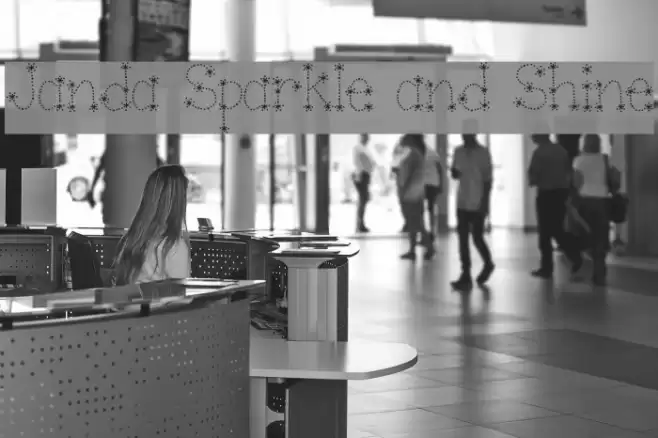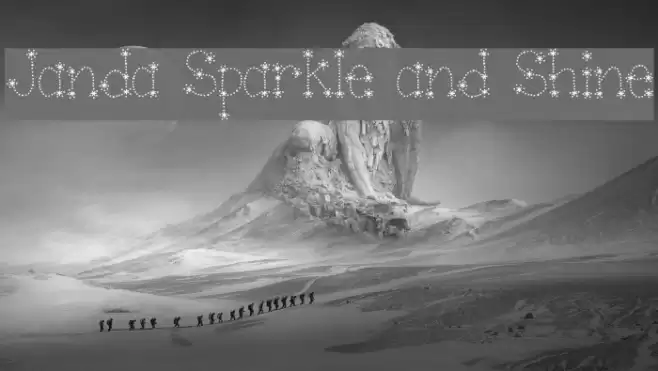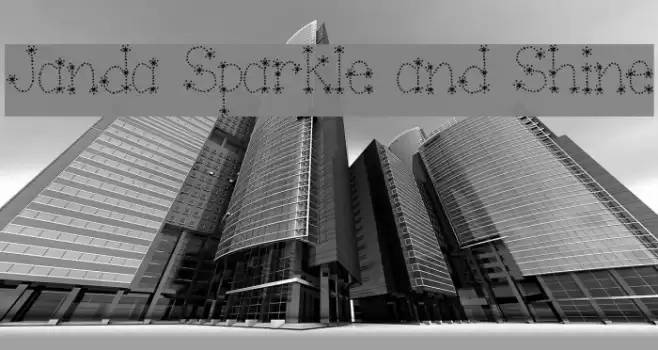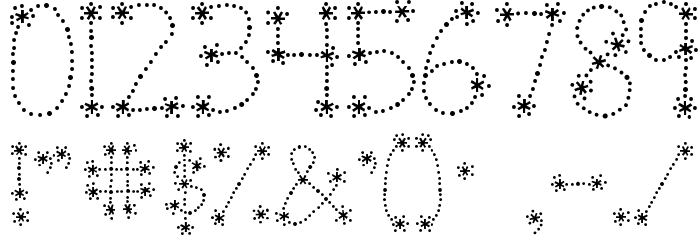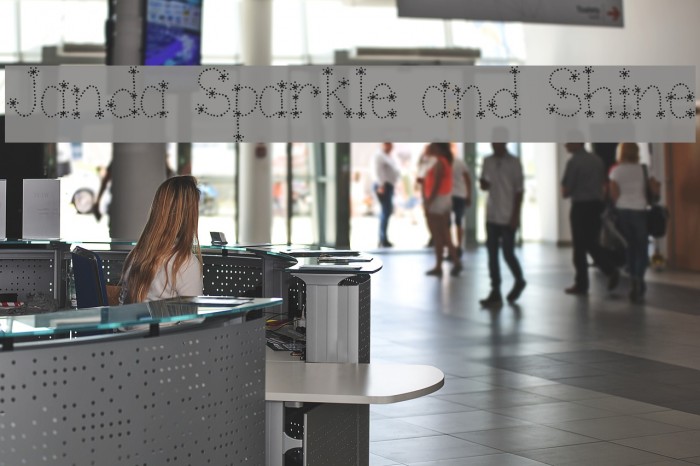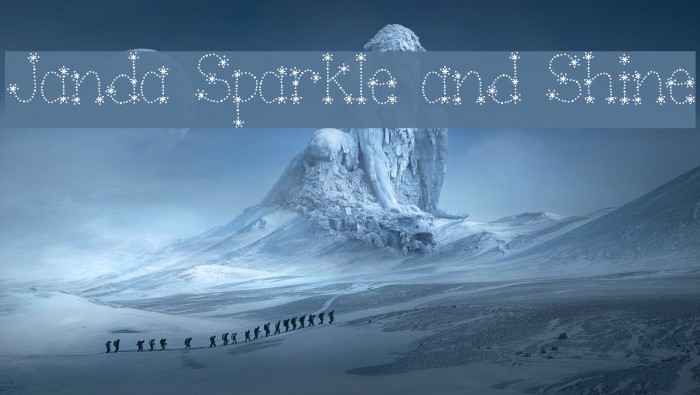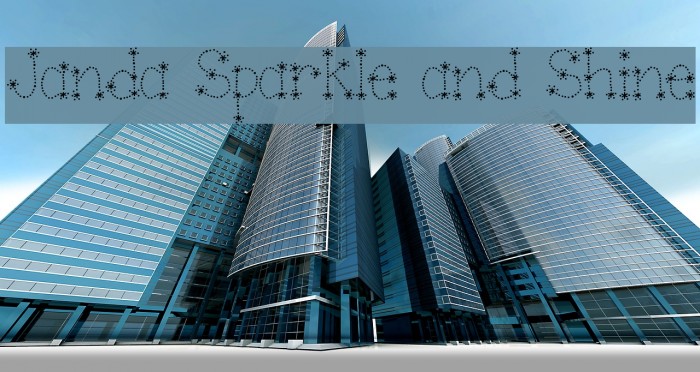
Janda Sparkle and Shine Font
Janda Sparkle and Shine Description
This whimsical and playful font is composed of a series of dots and sparkles that form each character, creating a unique and eye-catching appearance. The letters are evenly spaced and maintain a consistent size, giving the font a balanced and harmonious look. The decorative elements add a sense of fun and creativity, making it ideal for projects that require a touch of whimsy and charm. The font is versatile, suitable for both uppercase and lowercase letters, as well as numbers and a variety of special characters. Its distinctive style makes it perfect for creative projects, invitations, and playful designs.
A whimsical, dotted font with sparkles, perfect for playful and creative designs from Decorative fonts.
- Proposed Projects: Ideal for invitations, greeting cards, children's books, and playful branding.
- Use Case: Headlines, Logos, Decorative text